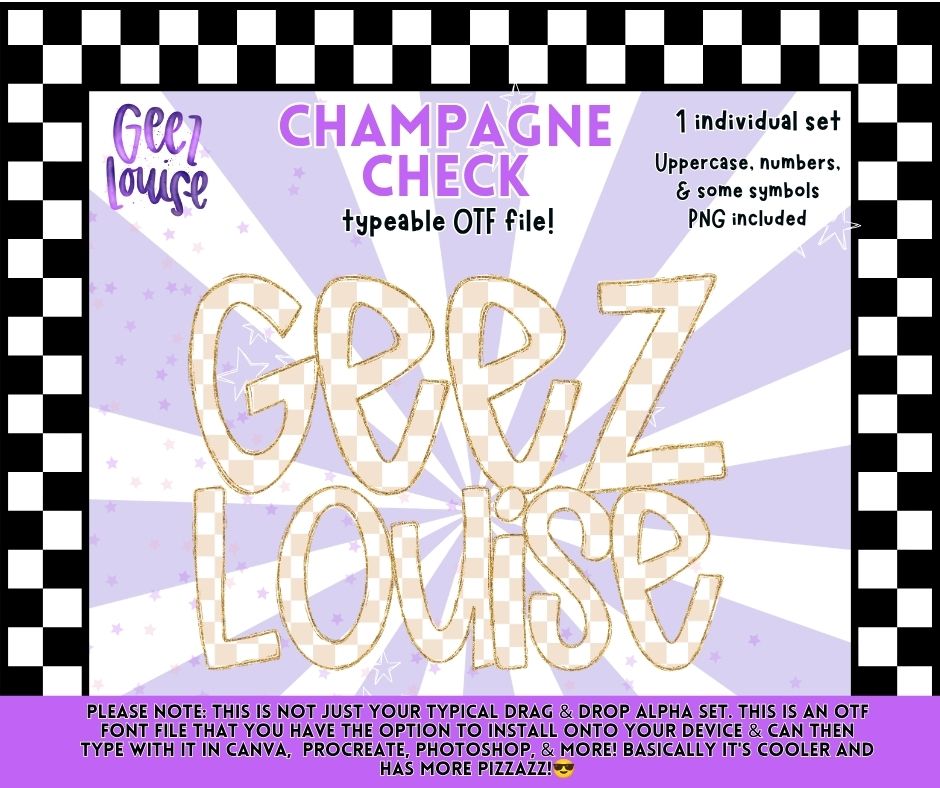
Champagne Check OTF Font | Neutral Checkered Alphabet | PNG Alpha Included | August 26 Combo Drive & Alpha Drive
Create elegant, timeless designs with the Champagne Check OTF Font! This neutral checkered alphabet features soft champagne tones with glitter accents and includes a matching PNG alpha set.